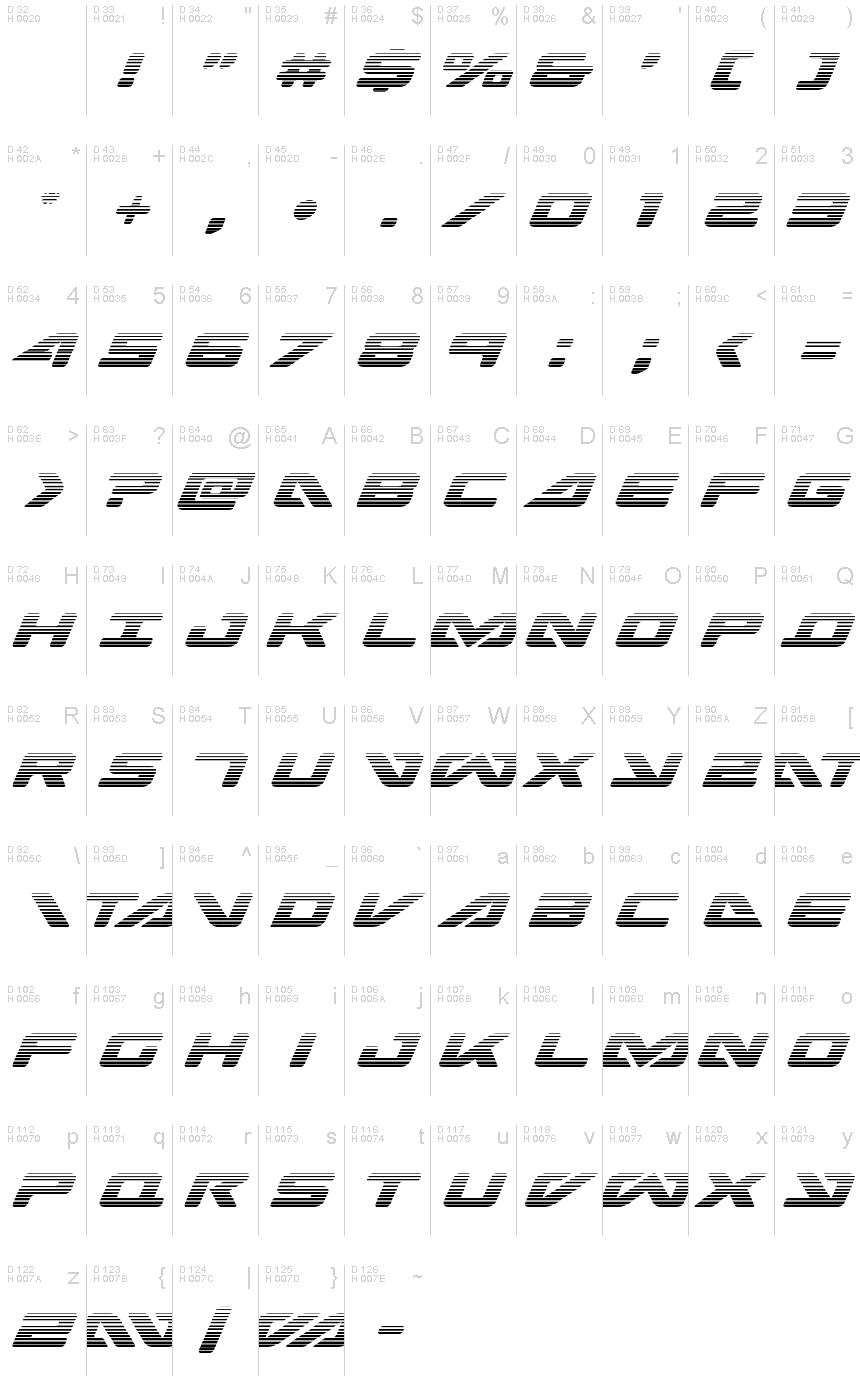
The Sea-Dog Gradient Super-Italic font by Iconian Fonts is a bold and futuristic display typeface that will make your designs stand out from the crowd. Its extra-expanded width gives it a powerful presence, while the super-italic style adds a touch of drama and flair. This font is perfect for projects that require a high-tech or sci-fi vibe, such as video game titles, movie posters, or technology product branding. Its gradient effect also makes it suitable for fashion or beauty industry design work. Give your designs an edge with the Sea-Dog Gradient Super-Italic font!
Sea-Dog Gradient Super-Italic